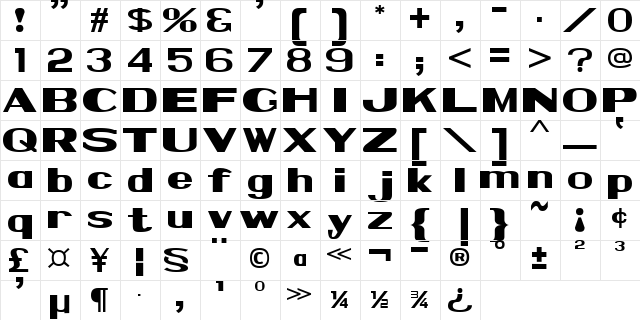
NPS 1935 Regular
| Foundry | E. V. Norat II |
| Designer | E. V. Norat II |
Design Context for NPS 1935 Typeface
NPS 1935 takes a measured approach to typography — its balanced proportions and neutral character make it a reliable workhorse for both digital and print work.